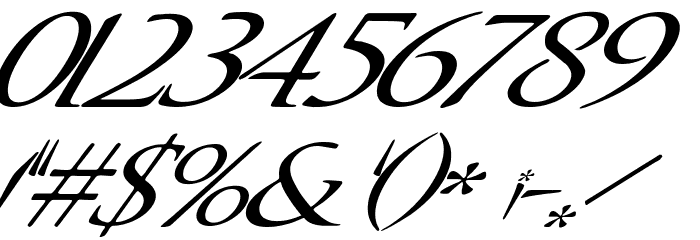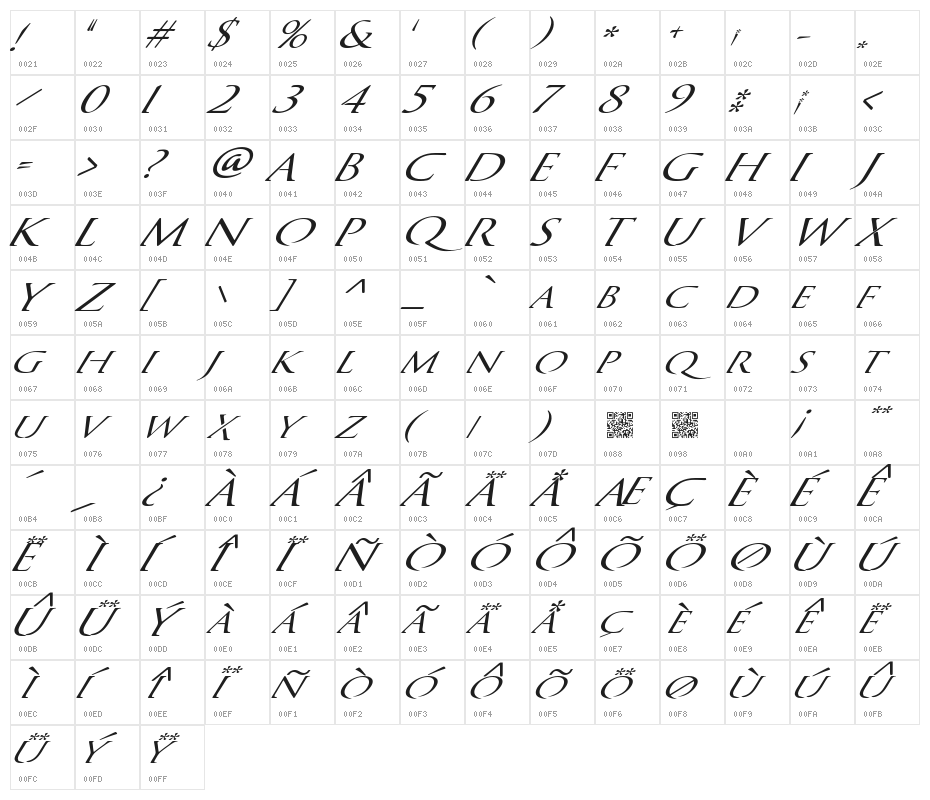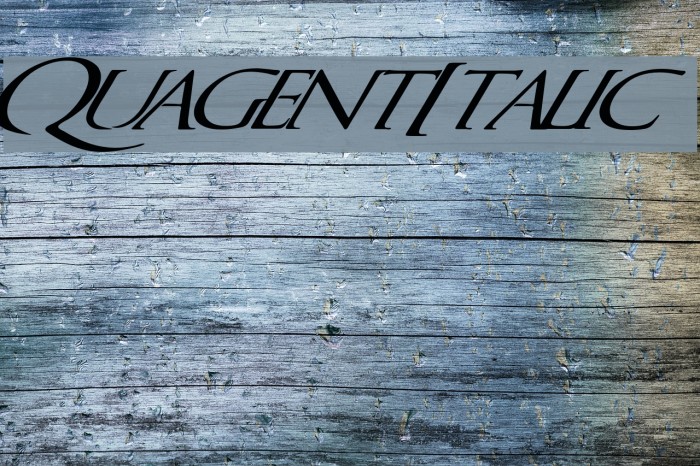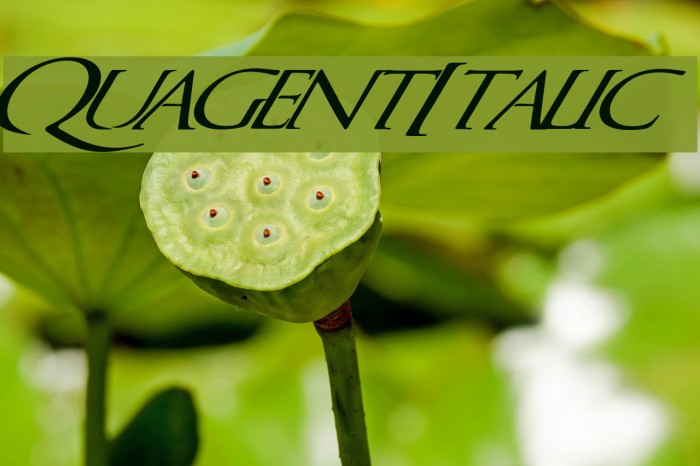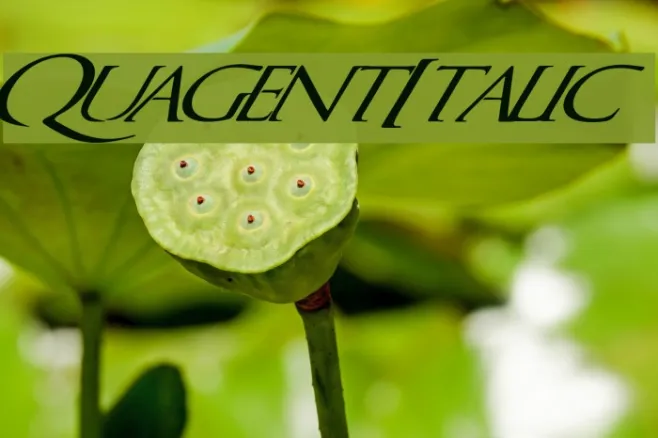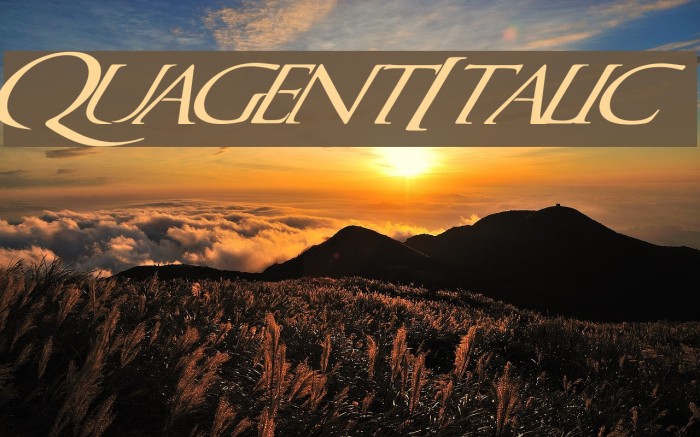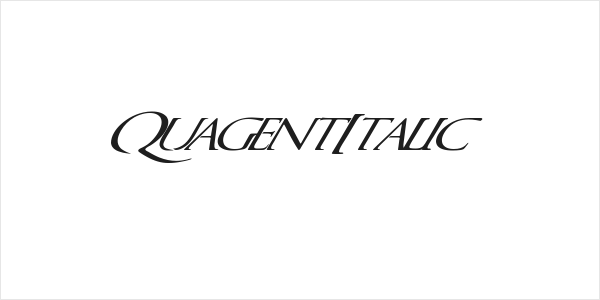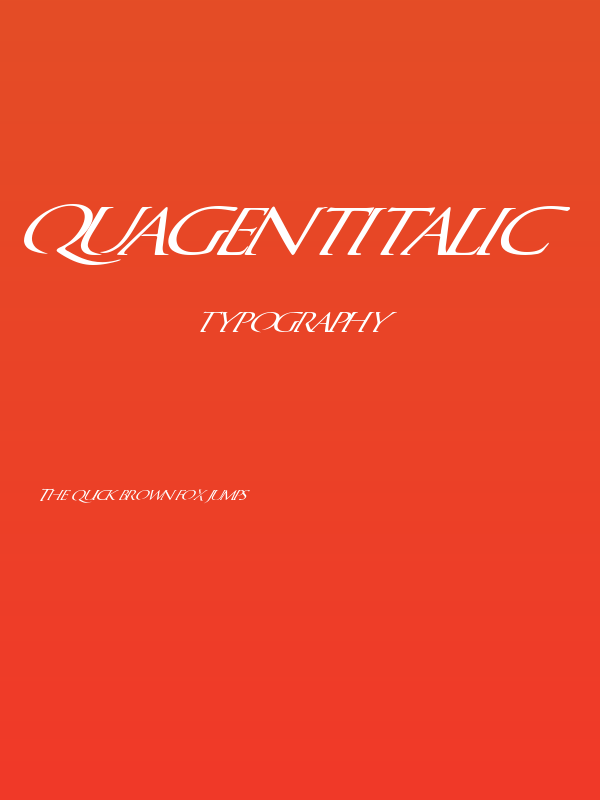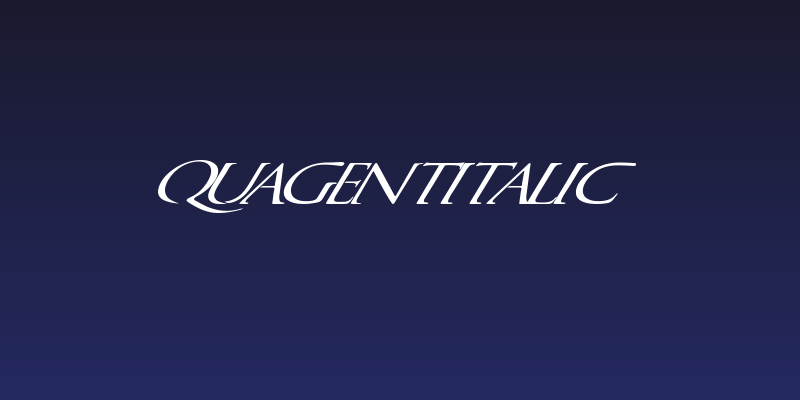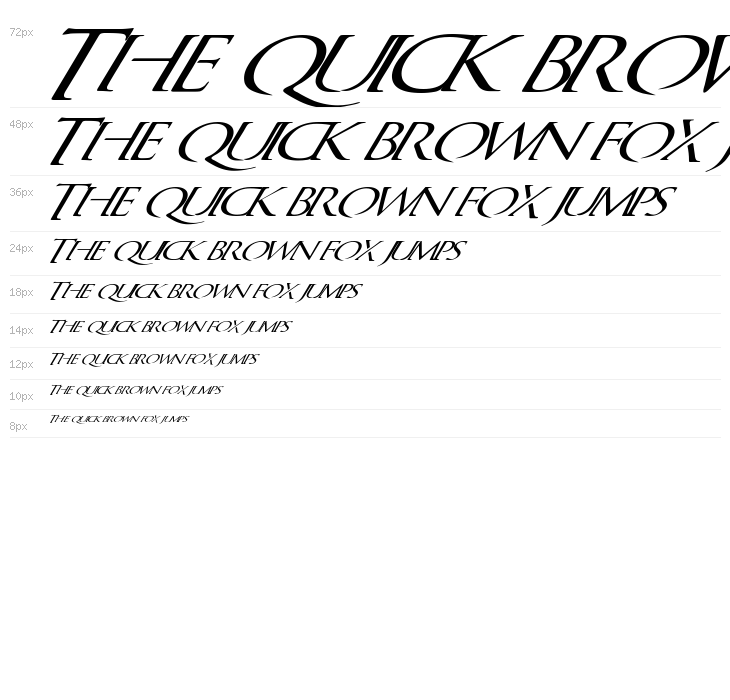
QuagentItalic Font
QuagentItalic Description
This font exhibits a dynamic and elegant style with a pronounced italic slant, giving it a sense of motion and sophistication. The characters are crafted with sharp, angular strokes that create a sleek and modern appearance. The uppercase letters are particularly striking, with elongated forms and distinct serifs that add a touch of classic elegance. The lowercase letters maintain the same angular style, ensuring consistency throughout the typeface. The numerals are bold and distinctive, making them stand out effectively. Special characters are designed with the same attention to detail, ensuring they complement the overall aesthetic. This font's unique style makes it suitable for projects that require a touch of elegance and modernity.
Overall StyleElegant and modern with a dynamic flair.
Use CaseHeadlines, Logos, Branding
Proposed ProjectsIdeal for luxury branding, fashion magazines, elegant invitations, and modern logos.